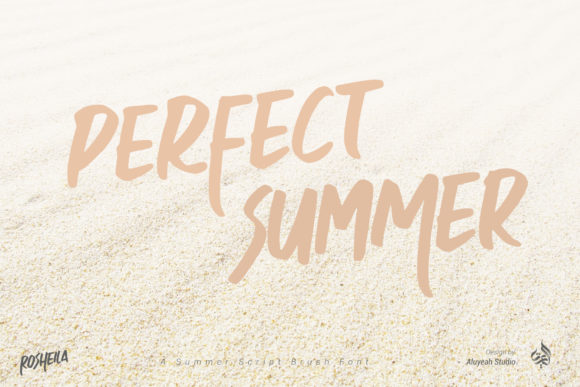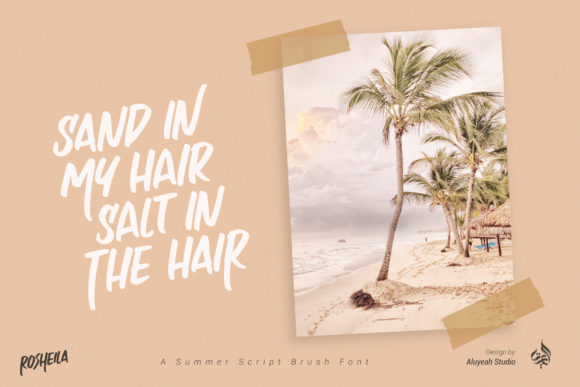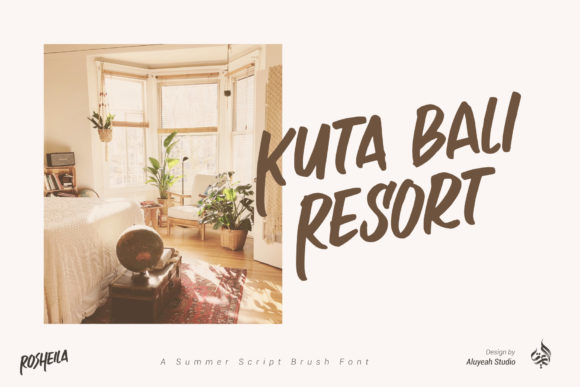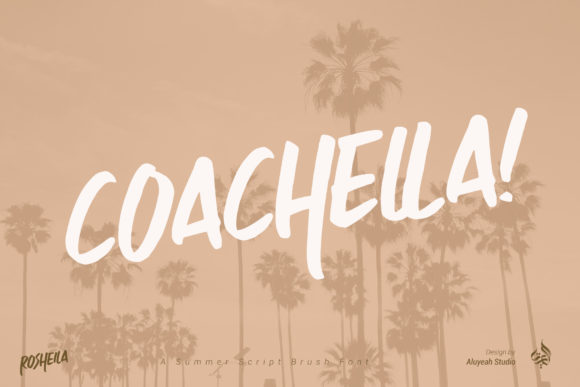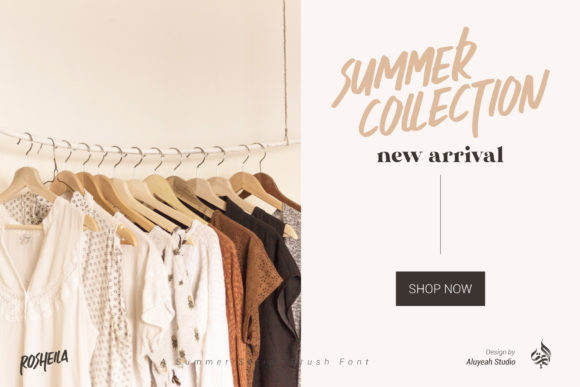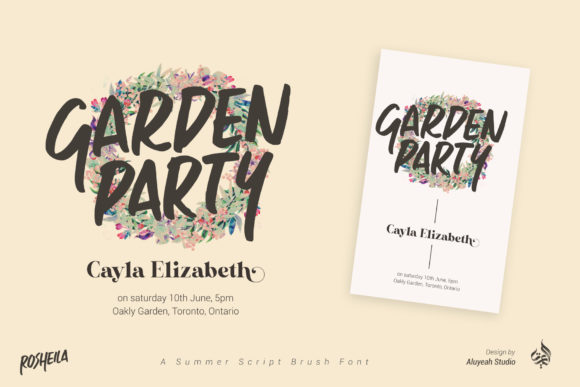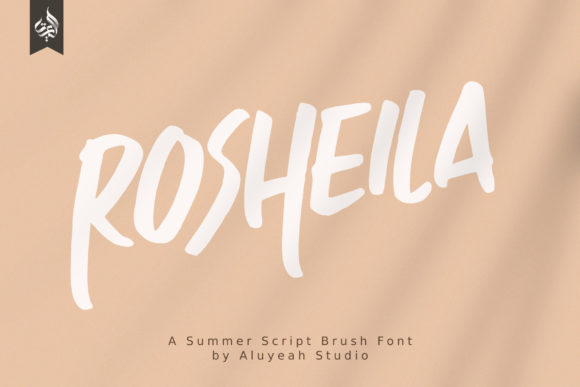
The Summer Vibes of AL Rosheila Font: A Designer’s Delight
I’ll never forget the summer I was tasked with creating a whimsical wedding invitation suite. My client wanted something that captured the essence of a warm, sunny day, and I was determined to deliver. As I scrolled through font after font, nothing seemed quite right – until I stumbled upon AL Rosheila. This charming handwritten font instantly transported me to a carefree summer afternoon, and I knew I had found the perfect fit.
A Personal Review of AL Rosheila Font
So, what makes AL Rosheila so special? Let’s dive into the details!
What I Love About AL Rosheila ✨
• ✅ Its casual, effortless vibe is perfect for creating a relaxed, summery feel in any design project.
• ✅ The font’s playful, handwritten style adds a touch of whimsy and personality to any text.
• ✅ It’s incredibly versatile, making it suitable for a wide range of applications, from branding and headings to wedding designs, invitations, and more.
• ✅ The font’s clean and legible design ensures that it remains readable even at smaller sizes.
• ⚠️ As with any handwritten font, some letters may have slight inconsistencies in terms of spacing or sizing. However, this actually adds to the font’s charm and organic feel.
• ⚠️ AL Rosheila may not be the best fit for more formal or corporate designs, as its playful nature may not align with the desired tone.
3. Experiment with OpenType features like ligatures and stylistic alternates to add visual interest to your text.
The Story Behind AL Rosheila Font
While the exact story behind AL Rosheila’s creation may be unknown, it’s clear that this font was designed with a passion for playful, handwritten typography. The font’s creator likely drew inspiration from the carefree spirit of summer, crafting a font that’s perfect for capturing the essence of warm, sunny days.
Q: What makes AL Rosheila font so special?
A: AL Rosheila’s unique blend of playfulness and elegance makes it a standout font for a wide range of design projects.
Q: Is AL Rosheila suitable for body text?
A: While AL Rosheila is primarily designed for headings and titles, it can be used for body text in certain contexts. However, its playful nature may make it less suitable for longer blocks of text.